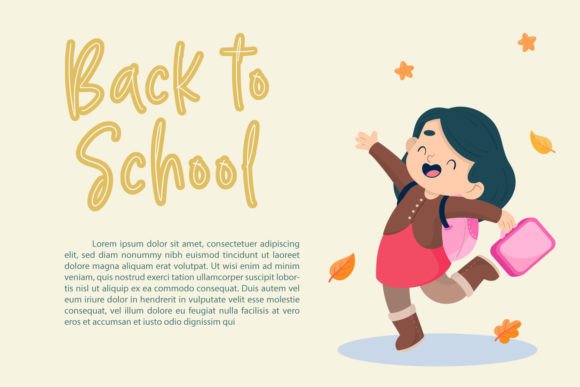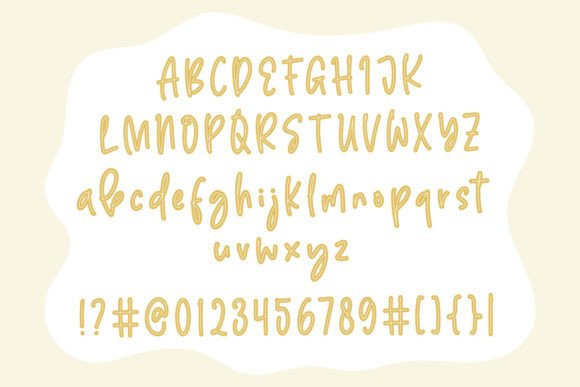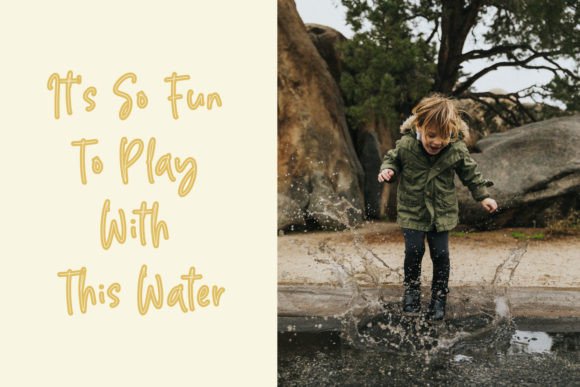
About Buletha Font
“Buletha” is a cute font that radiates an incredibly friendly and inviting vibe. This font is an excellent choice for a wide array of creative applications, making it a perfect fit for branding, stationery, social media graphics, logos, invitations, quotes, and various crafty DIY projects.
The charm of “Buletha” lies in its ability to infuse your projects with a sense of friendliness and approachability. Its design exudes warmth and a welcoming character, making it an ideal addition to a variety of creative endeavors.
Whether you’re working on branding and logo design, crafting stationery items, creating engaging social media content, designing invitations, or incorporating quotes into your projects, “Buletha” is the font that can enhance your ideas with a friendly and inviting touch.
In the world of design, creating a connection with your audience through friendliness and approachability is essential, and “Buletha” excels in this regard. It ensures that your projects not only look visually appealing but also convey a feeling of warmth and welcoming, leaving a memorable and engaging impression on your audience.
In summary, “Buletha” is more than just a font; it’s a creative tool that adds a sense of friendliness and approachability to your work. Its friendly feel and versatile design make it suitable for a wide range of projects, allowing you to create designs that are not only visually captivating but also emotionally engaging and welcoming. Embrace “Buletha” and let its friendly and inviting charm enhance your creative endeavors, making them feel approachable and memorable.